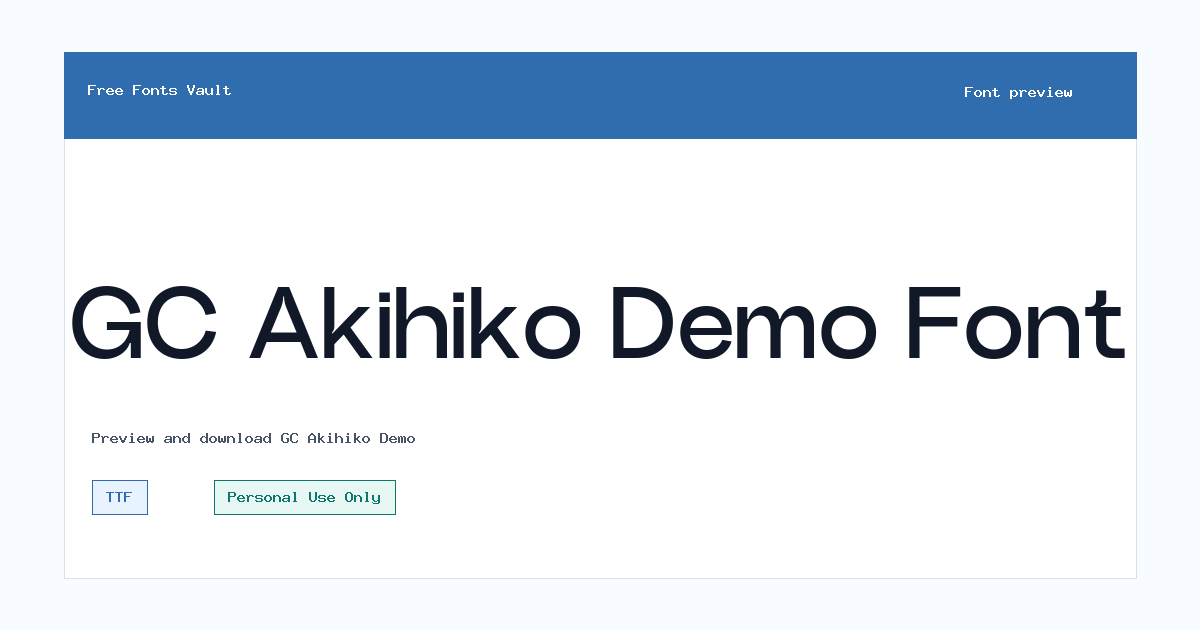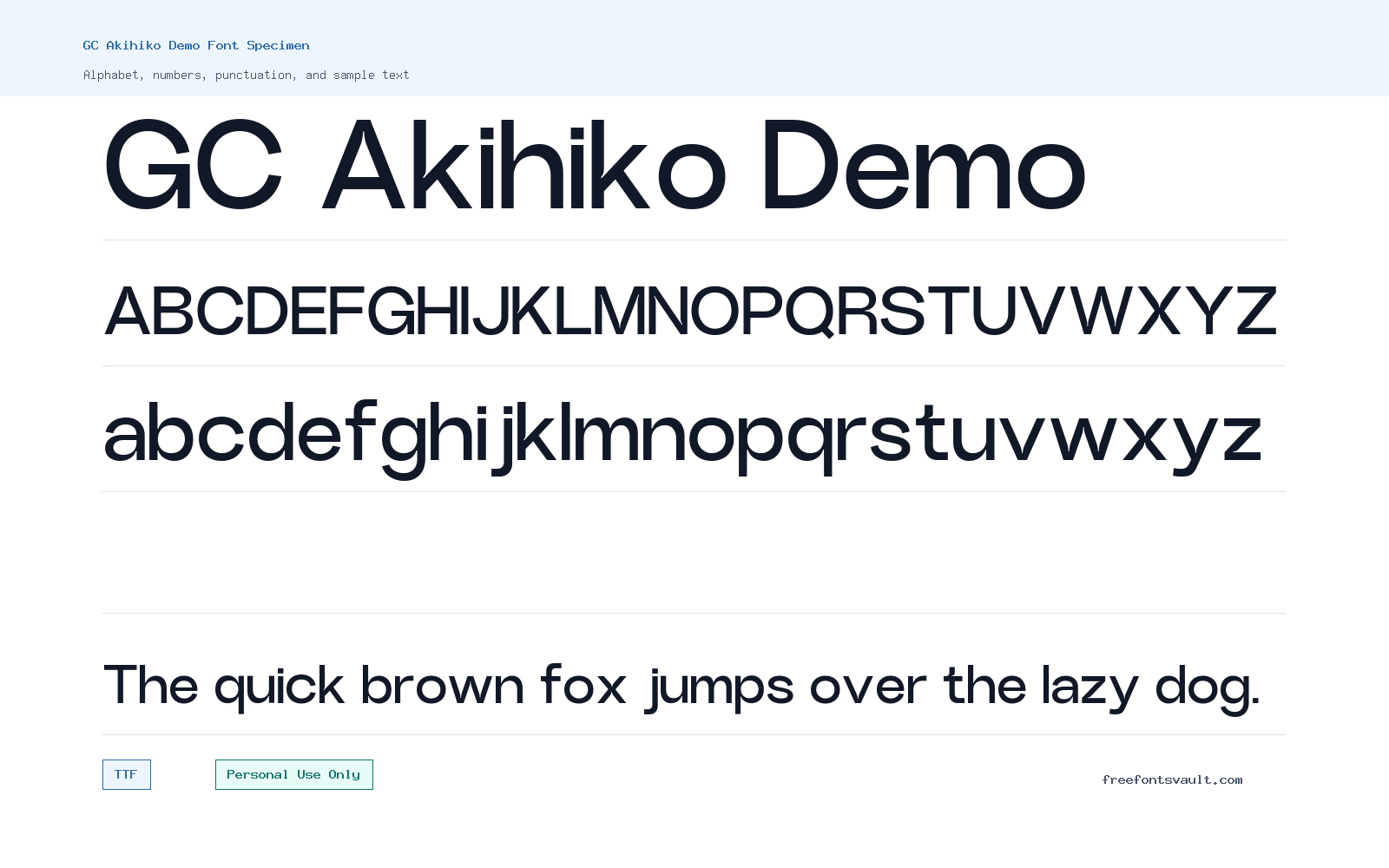
GC Akihiko Demo
• Designer Laila Nuzul Maghfiroh of Glyphonic
• Foundry Glyphonic
GC Akihiko Demo is a sans serif demo font from Glyphonic with two practical weights: Regular and Bold. It is best treated as a personal-use typeface, suitable for testing display layouts, logo drafts, posters, and web design concepts before deciding whether it fits a larger project.
About GC Akihiko Demo
GC Akihiko Demo gives you a clean sans serif base with enough weight range to build simple visual hierarchy. The Regular style can work for short supporting text, labels, captions, menu items, or preview paragraphs, while the Bold style is better for names, titles, button text, poster lines, and branding drafts. Because the family is provided in TTF format, it is easy to install on most desktop systems and test inside common design tools. Use the preview box to check your own wording rather than judging it only from the font name or a sample image.
This font is most useful when you need a direct, modern-looking sans serif for short and medium-length text settings. Try it in logo sketches, social media graphics, web mockups, app headers, presentation covers, packaging drafts, and poster compositions. For body text, test it carefully at smaller sizes, especially if your project needs long reading passages. Demo fonts sometimes have limited character sets or license limits, so check the glyph coverage, punctuation, numbers, and accented characters you need before using it in a finished design.
The two weights make it easier to create contrast without switching to another family. A simple layout might use Bold for the headline and Regular for a short subtitle. This can work well for clean landing page mockups, minimal editorial graphics, personal portfolio concepts, and brand direction boards. If the design starts to feel too plain, pair GC Akihiko Demo with a serif for contrast, or with a more expressive display font for a stronger headline. If you use another sans serif beside it, choose one with clearly different proportions so the pairing does not look accidental.
• Sans serif demo family with Regular and Bold styles
• Normal upright style in 400 and 700 weights
• Useful for testing clean headlines, logo drafts, posters, and web mockups
• Logo sketches and brand concept drafts
• Poster titles and event graphics
• Website and app interface mockups
• Social media artwork and presentation covers
• Short headings, labels, buttons, and simple text hierarchy
• Personal design experiments and typography previews
GC Akihiko Demo is credited to Laila Nuzul Maghfiroh of Glyphonic, with Glyphonic listed as the foundry.
How many styles does GC Akihiko Demo have?
There are two listed styles: Regular with a 400 weight and Bold with a 700 weight.
Is GC Akihiko Demo good for body text?
It may work for short text blocks, labels, and captions, but you should test readability at small sizes before using it for long paragraphs.
What should I pair with GC Akihiko Demo?
For a clean design, pair the Bold style with the Regular style first. For contrast, try a readable serif body font or a more expressive display font, depending on the project.